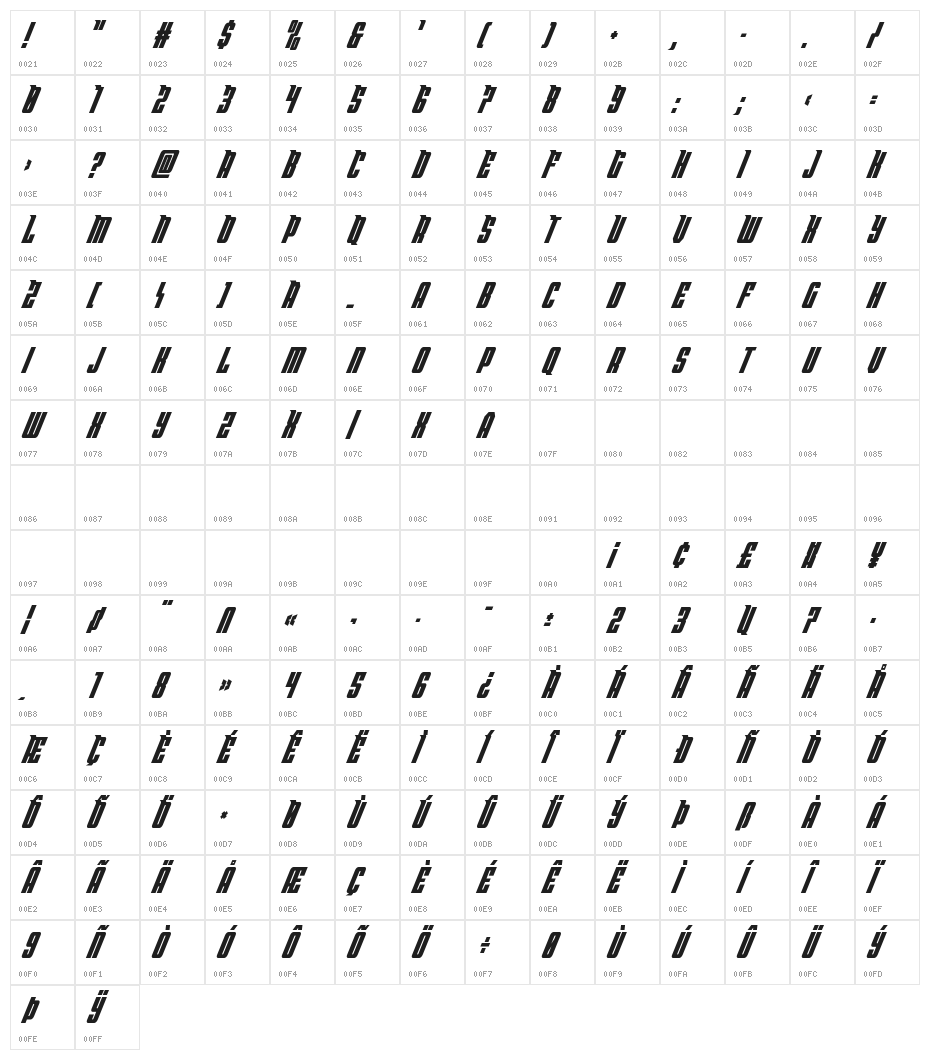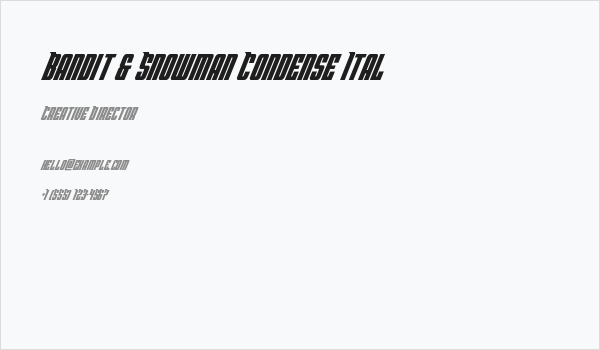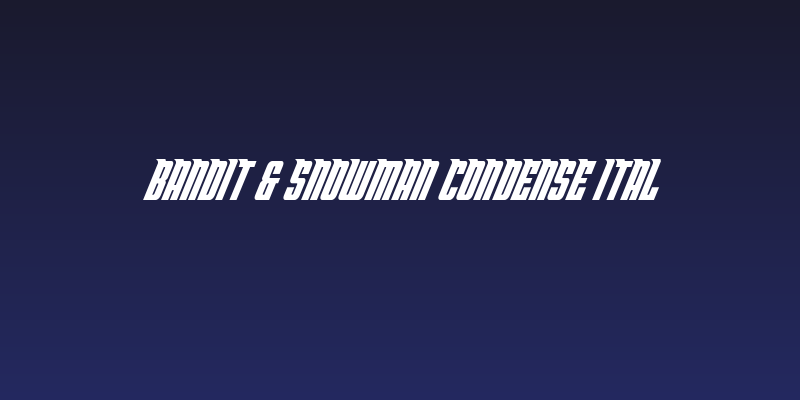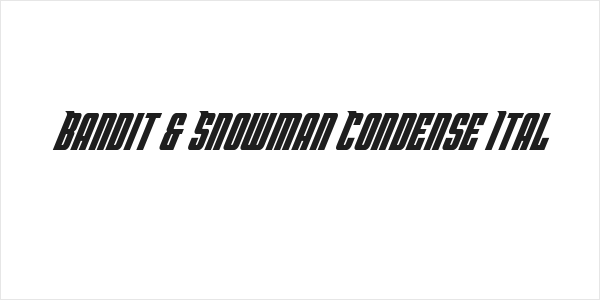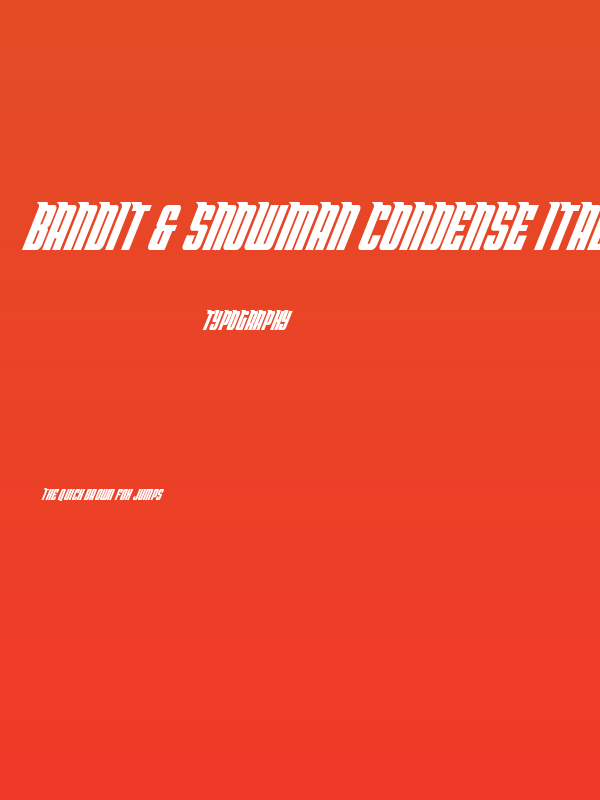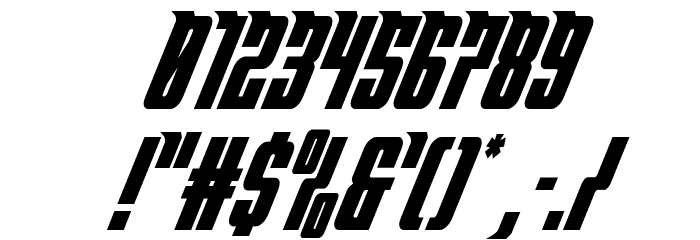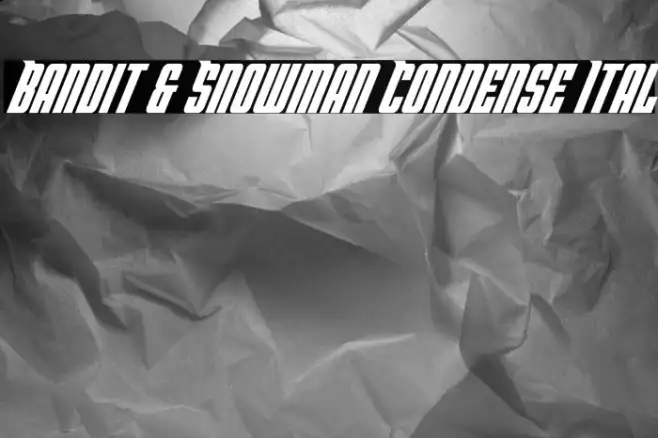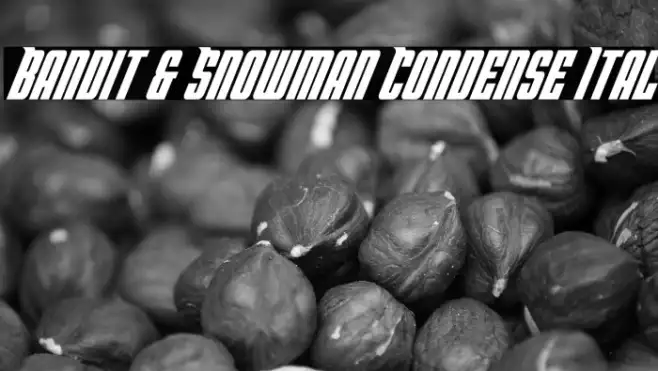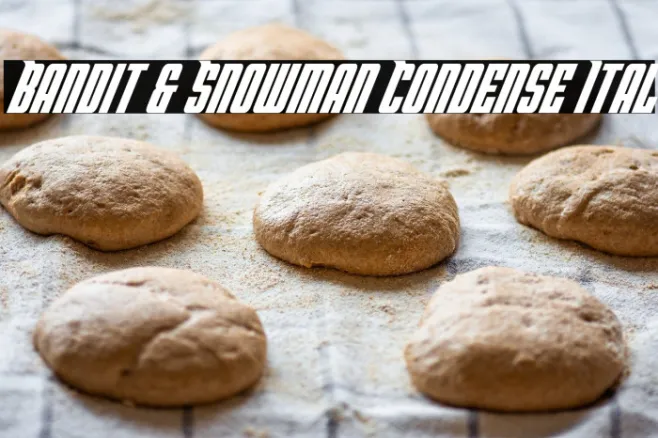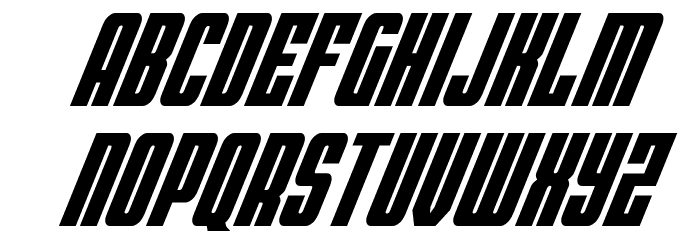
Bandit & Snowman Condense Ital Font
Bandit & Snowman Condense Ital Description
This font features a bold, condensed style with a distinct slant, giving it a dynamic and energetic appearance. The characters are tightly spaced, enhancing the compact look. The uppercase letters are prominent and assertive, while the lowercase letters maintain the same boldness and slant. Numbers and special characters follow the same stylistic cues, ensuring consistency across all elements. The font's high contrast in stroke thickness adds to its striking presence, making it ideal for attention-grabbing designs.
| Proposed Projects | Perfect for sports branding, dynamic posters, and impactful headlines. |